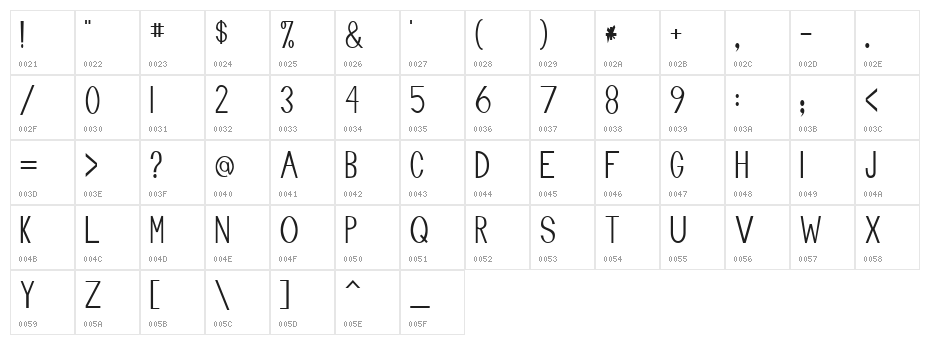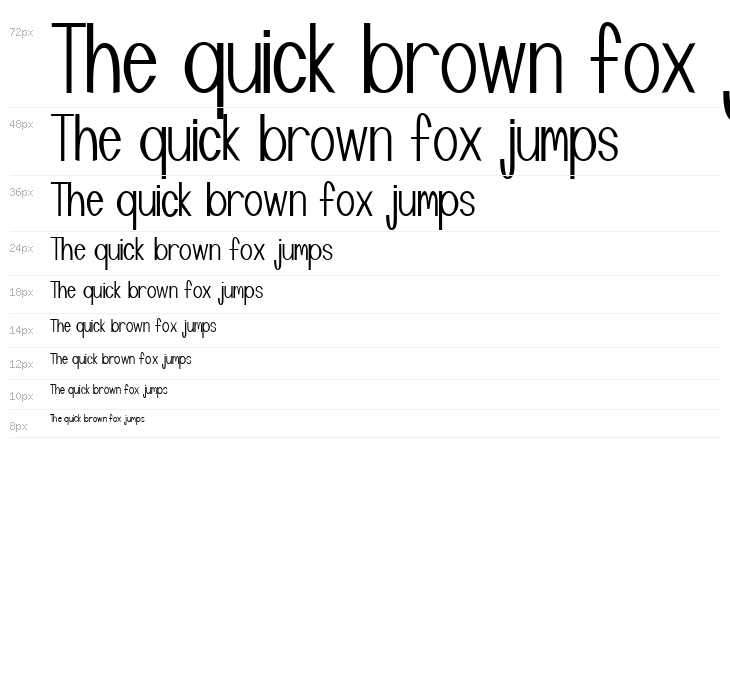
Manta Font
Manta Description
This font features a clean and modern sans-serif style with a geometric influence. The characters are tall and narrow, giving it a condensed appearance. The uppercase letters are uniform in height, while the lowercase letters have a consistent x-height, enhancing readability. The numbers are clear and distinct, with a uniform width that complements the overall design. Special characters are well-integrated, maintaining the font's sleek and contemporary aesthetic. This font's simplicity and elegance make it versatile for various design applications.
| Proposed Projects | Ideal for branding, editorial design, advertising, and web design projects where a modern and clean look is desired. |